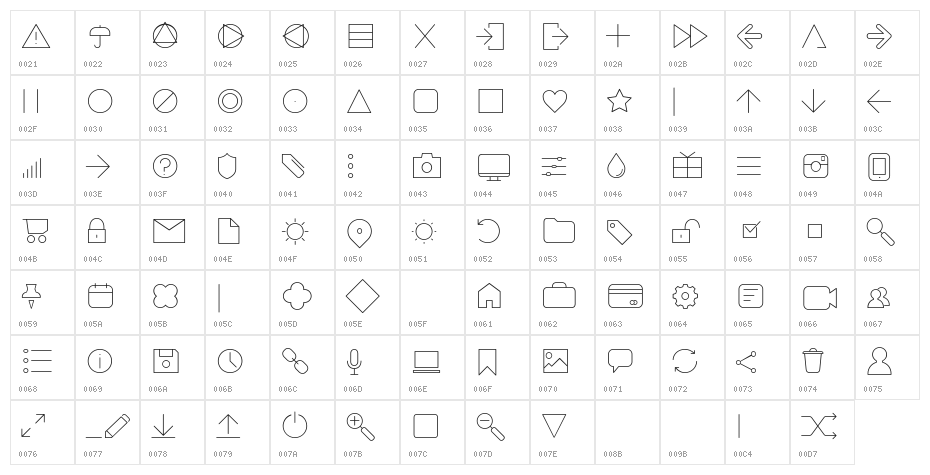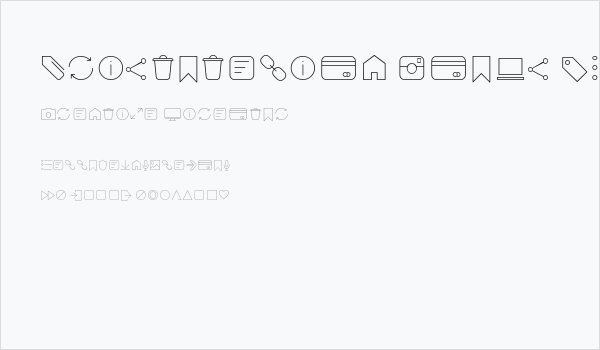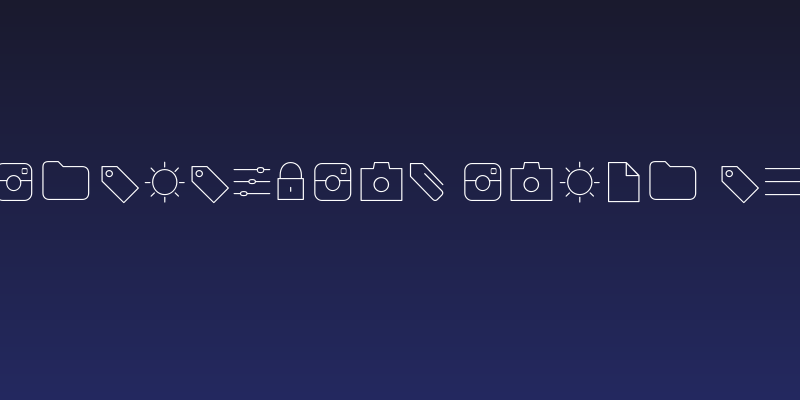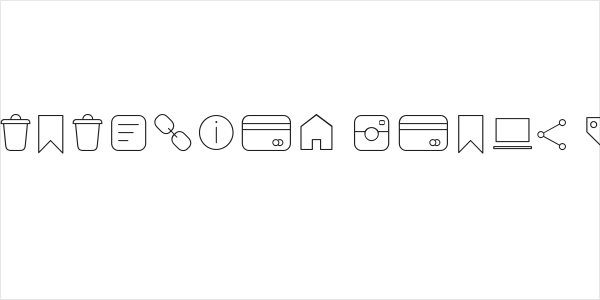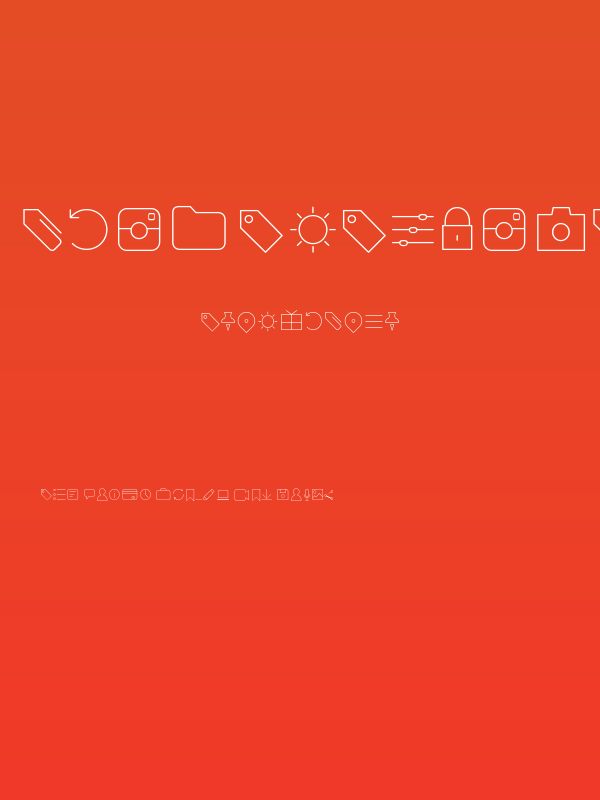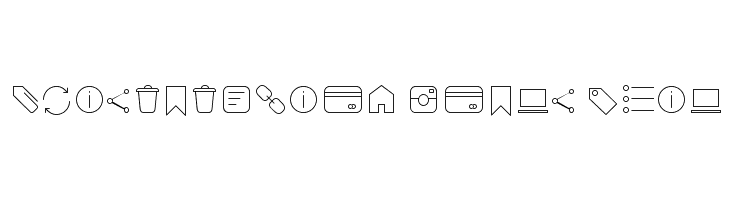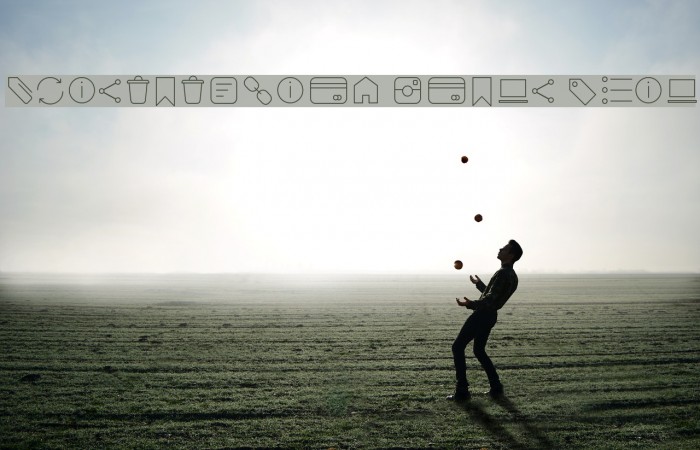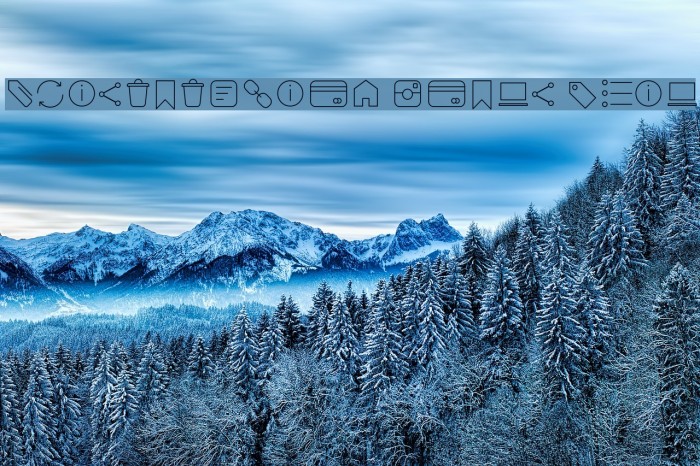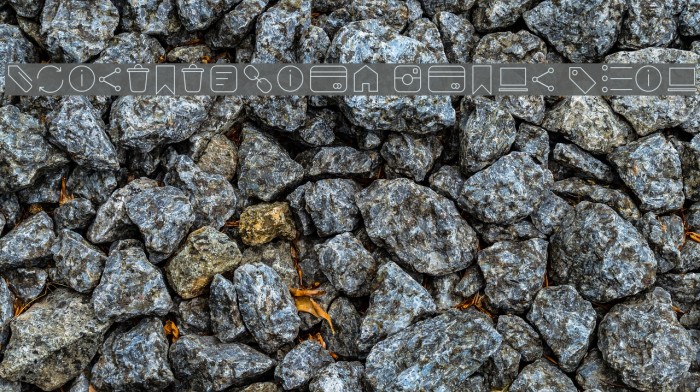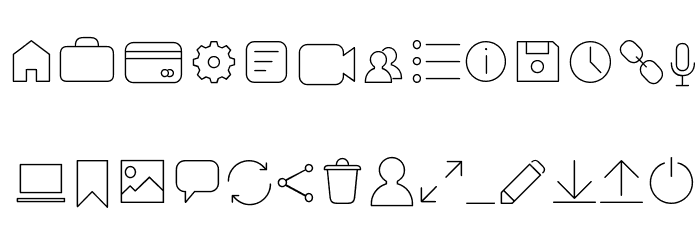
Aristotelica Icons Thin Font
Aristotelica Icons Thin Description
A thin, minimalist icon set with consistent line weights and geometric shapes, offering a clean and modern appearance suitable for user interfaces and digital applications.
| Overall Style | Modern, Minimalist |
| Use Case | Icons for UI/UX, navigation, toolbars, and informational graphics. |
| Proposed Projects | Mobile apps, web interfaces, dashboards, presentations, infographics. |